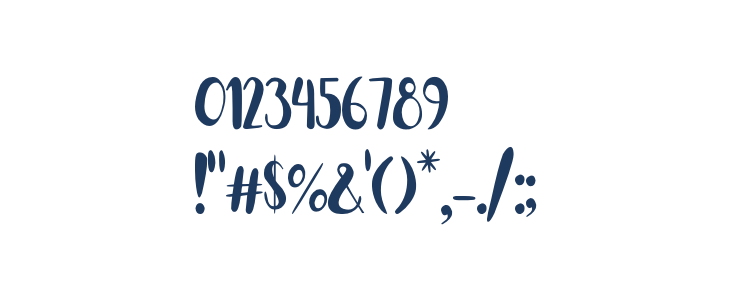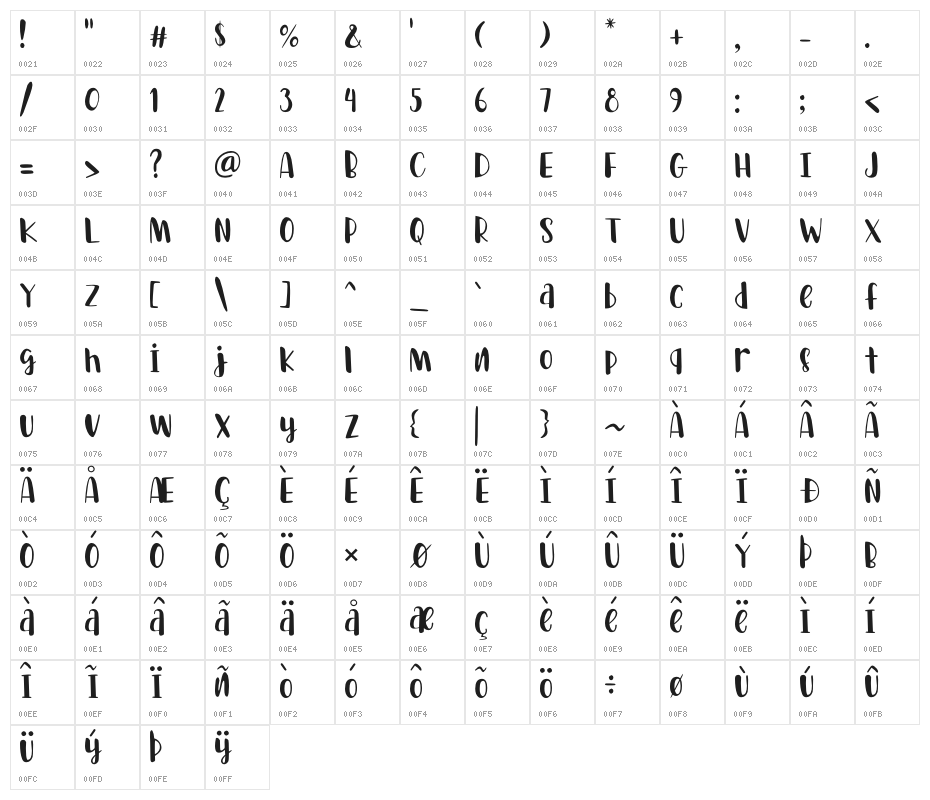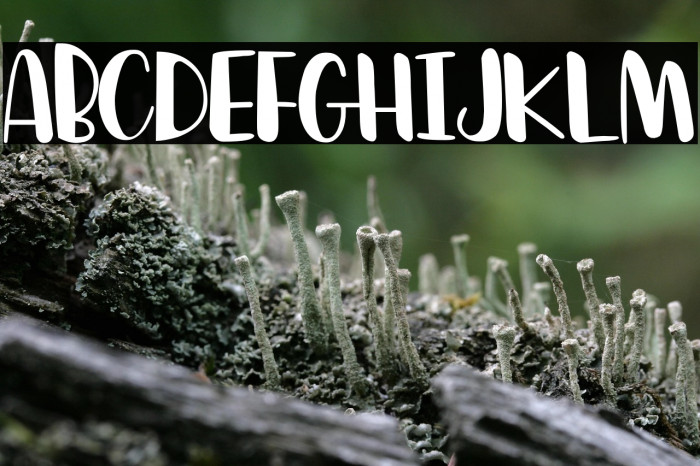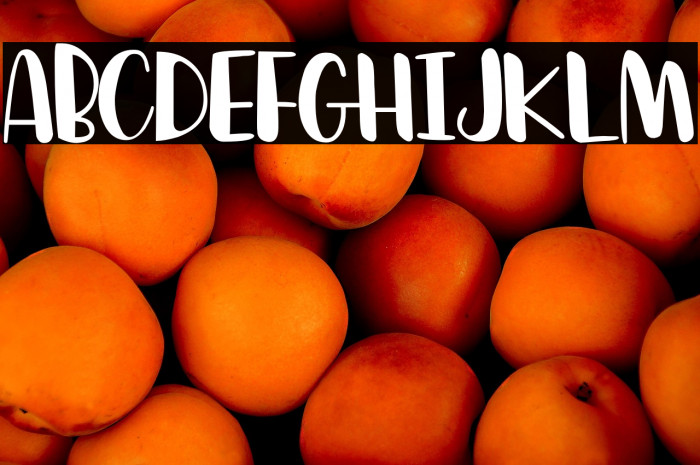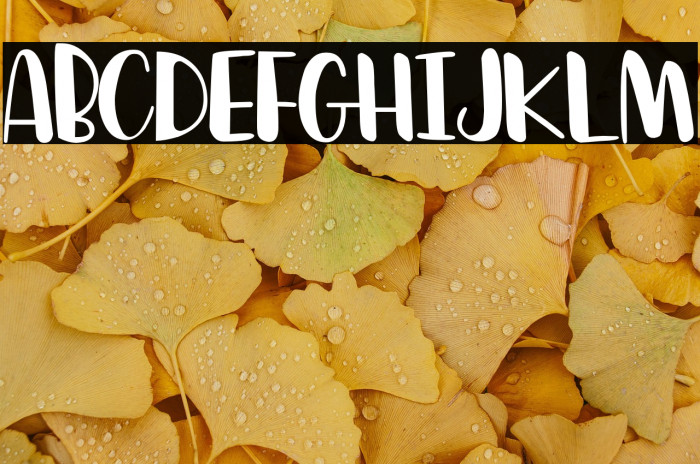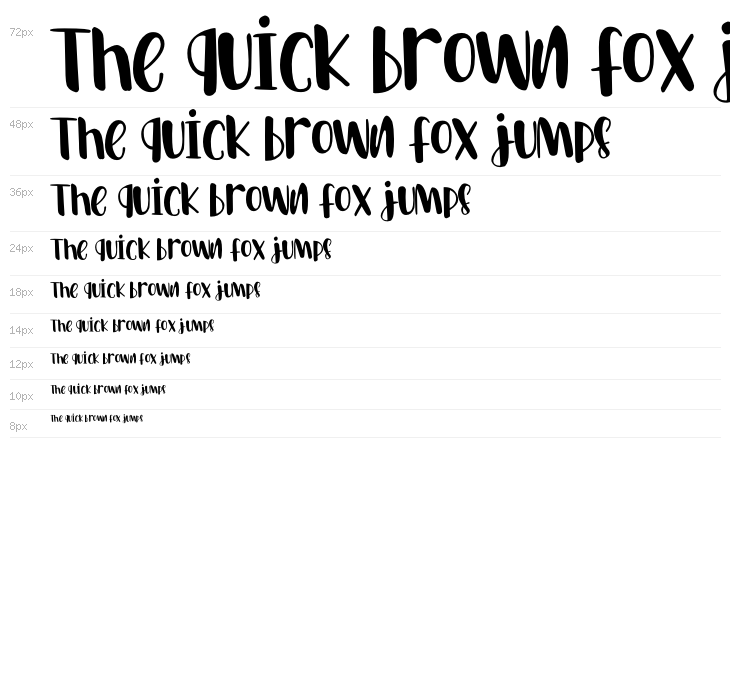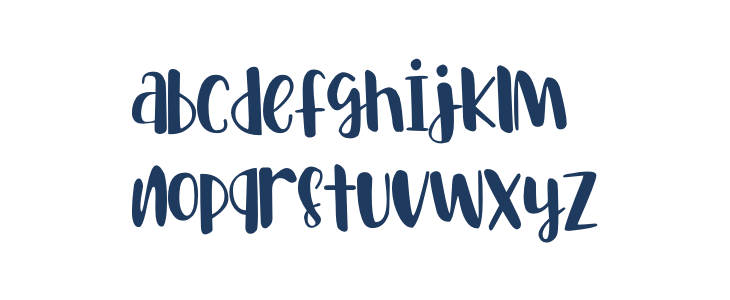
Boykids Font
Boykids Description
This playful and whimsical font features bold, rounded characters with a hand-drawn aesthetic. The uppercase letters are tall and slightly narrow, while the lowercase letters have a more relaxed and casual appearance. The numbers are consistent with the overall style, maintaining a fun and approachable feel. Special characters are creatively designed, adding to the font's charm. The strokes are thick and consistent, providing a strong visual impact. This font is ideal for projects that require a friendly and informal touch, such as children's books, playful branding, or creative posters.
| Proposed Projects | Children's books, playful branding, creative posters, party invitations. |